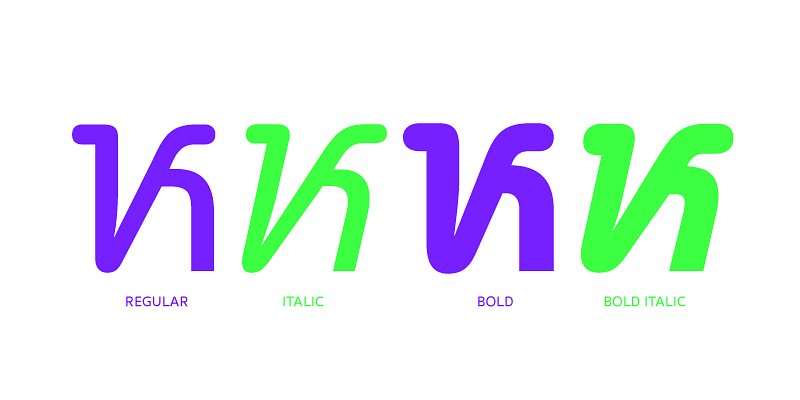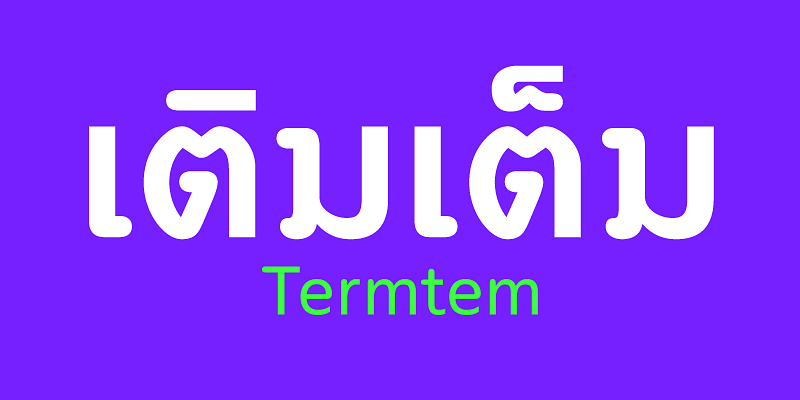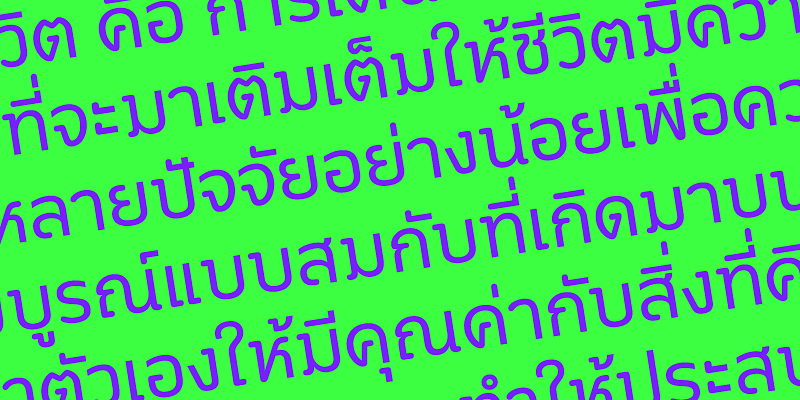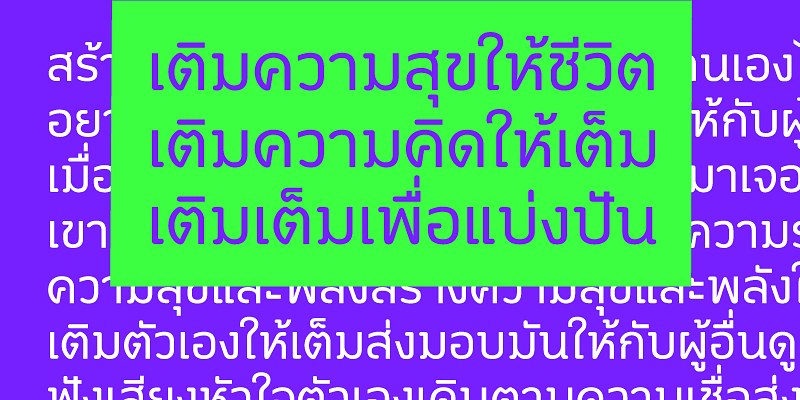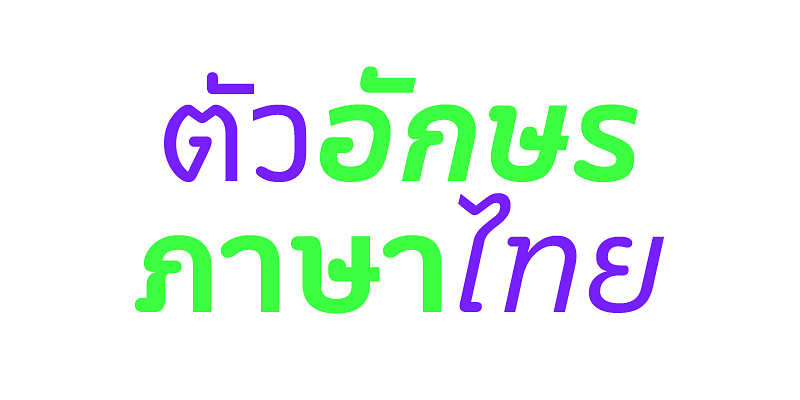
A Thai Concealed Loop that has a unique texture resulting from a rounded start terminal with a squared end terminal. It is suited for usage in body texts and can be used for both friendly and formal occasions.